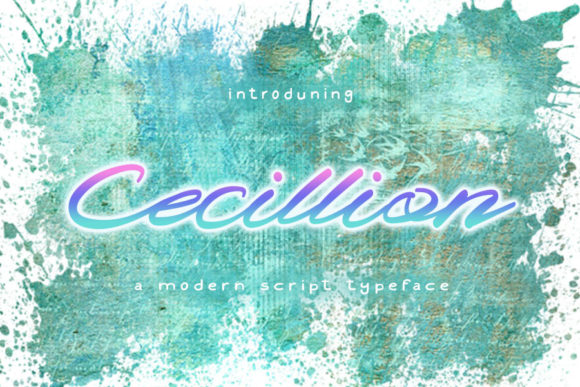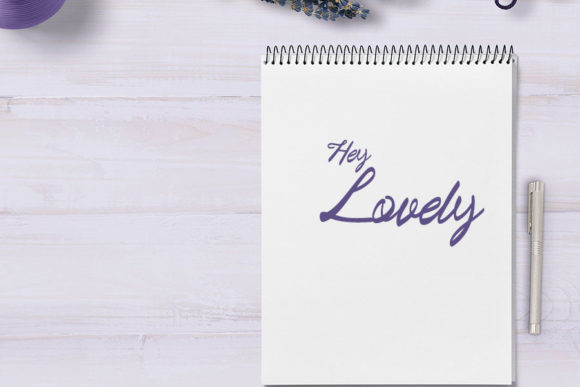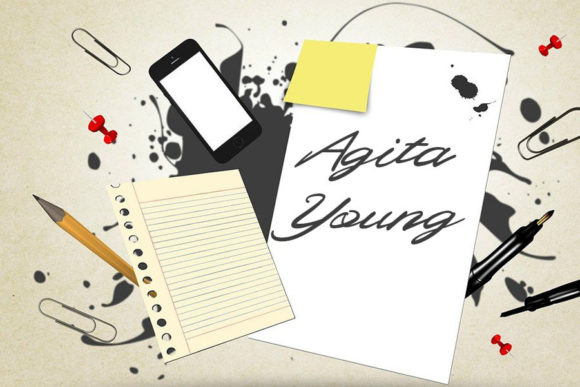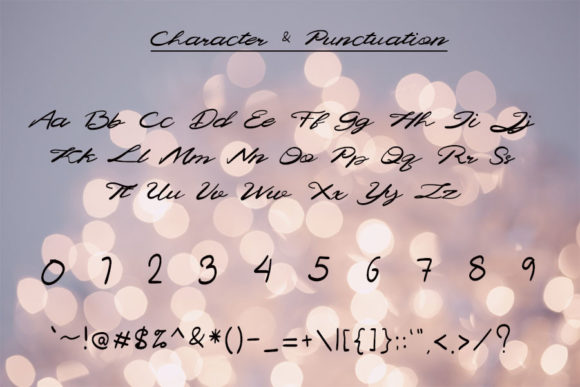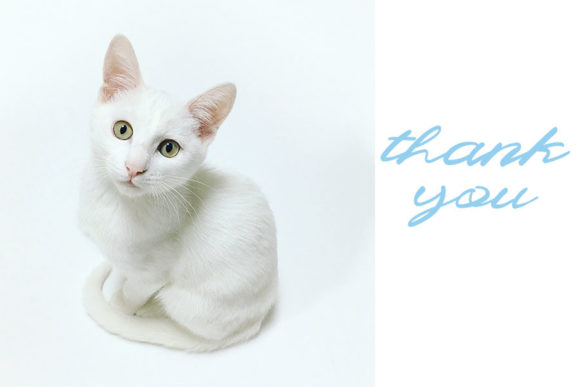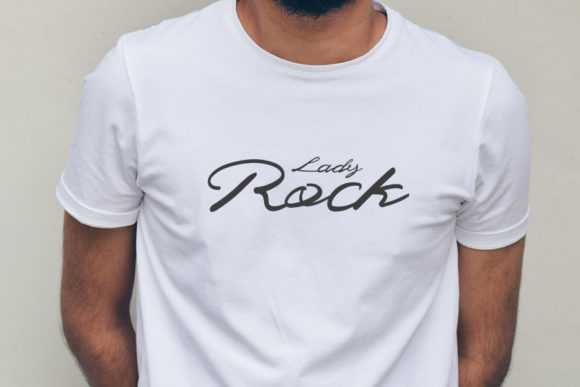
Cecillion Font
About Cecillion Font
Cecillion is an exquisite script font that exudes elegance and sophistication. With its carefully crafted design and intricate details, this font is a true work of art. No matter the topic or purpose, Cecillion is a valuable asset to add to your font library, as it has the potential to enhance any creation.
The neat and precise craftsmanship of Cecillion is evident in its letterforms. Each stroke is meticulously designed, resulting in a font that is visually pleasing and balanced. The curves and flourishes of the script are carefully executed, giving the font a graceful and refined appearance. This attention to detail ensures that Cecillion stands out and makes a lasting impression.
Versatility is a key feature of Cecillion. It can be used in a wide range of design projects, including logos, branding, invitations, stationery, wedding designs, social media posts, and more. Its timeless elegance and sophistication make it suitable for both formal and informal applications. Whether you’re creating a luxurious wedding invitation or a stylish logo, Cecillion adds a touch of class and refinement to your designs.
Cecillion’s detailed and intricate design also lends itself well to decorative purposes. The font’s ornate swashes, ligatures, and alternate characters provide creative options to add flair and uniqueness to your typographic compositions. These additional design elements give you the freedom to customize and personalize your creations, making them truly one-of-a-kind.
With its potential to enhance any creation, Cecillion is a valuable addition to any designer’s font library. Its neatly crafted and highly detailed style makes it a versatile and captivating choice for a wide range of projects. Whether you’re aiming for a classic and elegant look or a sophisticated and intricate design, Cecillion is sure to elevate your typography and leave a lasting impression on your audience.
In summary, Cecillion is a ravishing script font that showcases exceptional craftsmanship and attention to detail. Its neat and highly detailed design, along with its versatility, make it a wonderful asset for any design project. Add Cecillion to your font library and unlock its potential to enhance and elevate your creations.